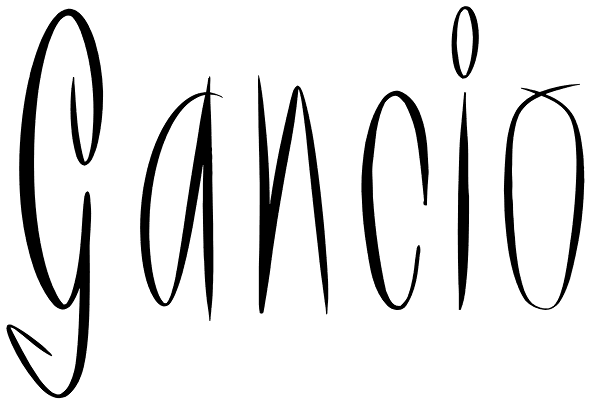
Gancio
Gancio is my first fully realized hand-drawn font and has a robust character set. Its simple lines and sophisticated curves are contemporary, but recall vintage and retro cool. The font is very adaptable and flexible and can be used effectively in a...